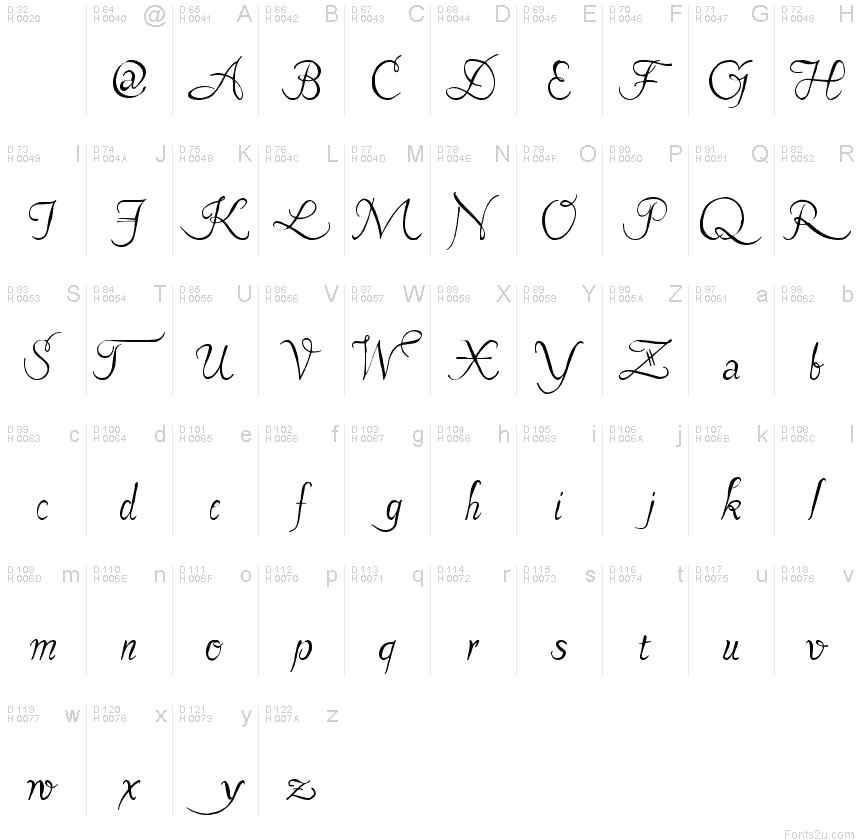
Pavane
Pavane, by David F. Nalle of Scriptorium Font Library, is a free calligraphic script font with a courtly, Renaissance air. The letters move with long, tapering strokes and airy curls, while the generous capitals and open lowercase shapes keep the rhythm graceful rather than fussy.
It suits invitations, poetry titles, recital programs, historical book covers, and restaurant menus where a little ceremony helps set the tone. As a free font, Pavane also works nicely for short headlines, monograms, and title cards, because those sweeping entries and exits give even a few words the feeling of a formal signature.